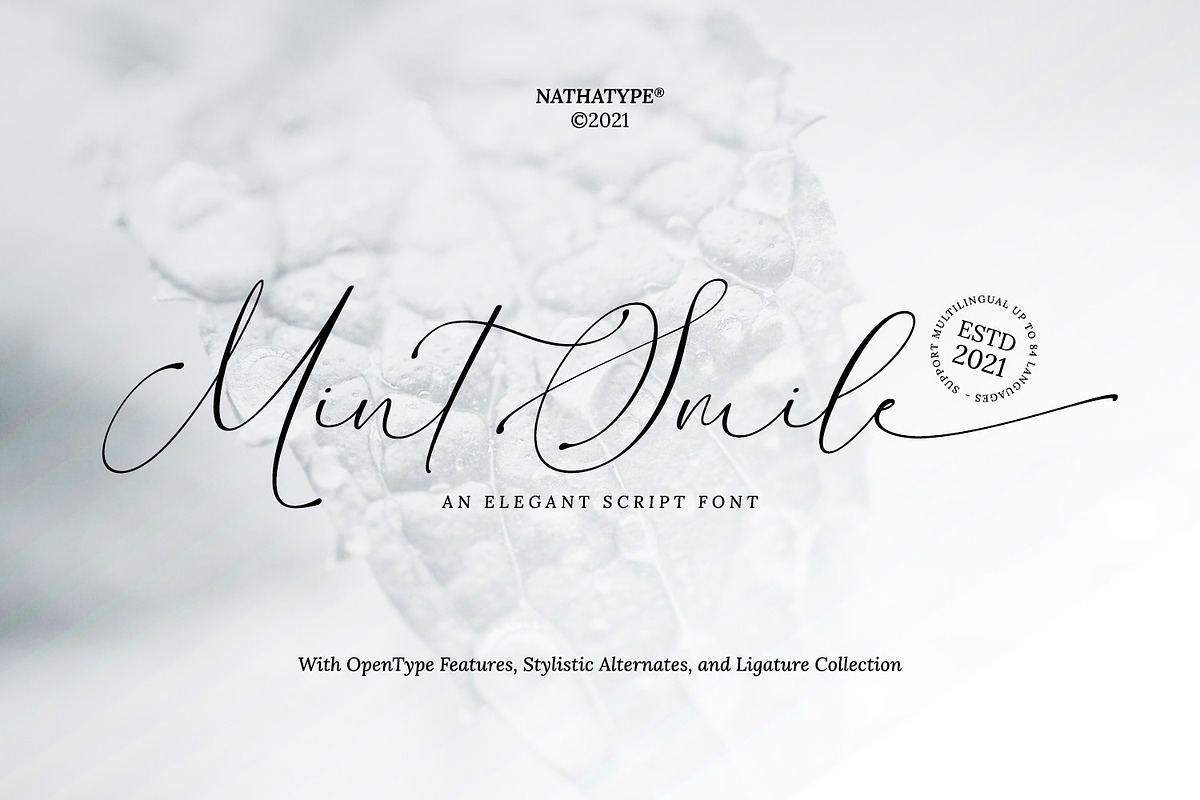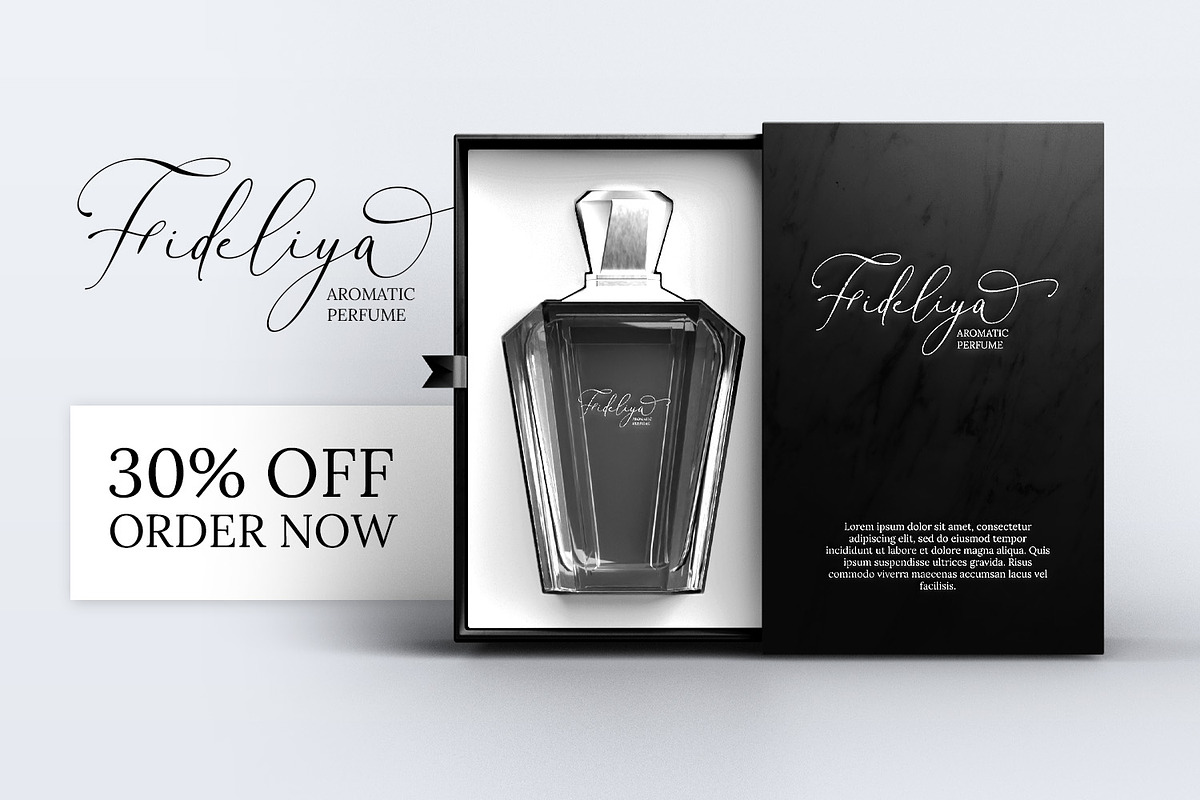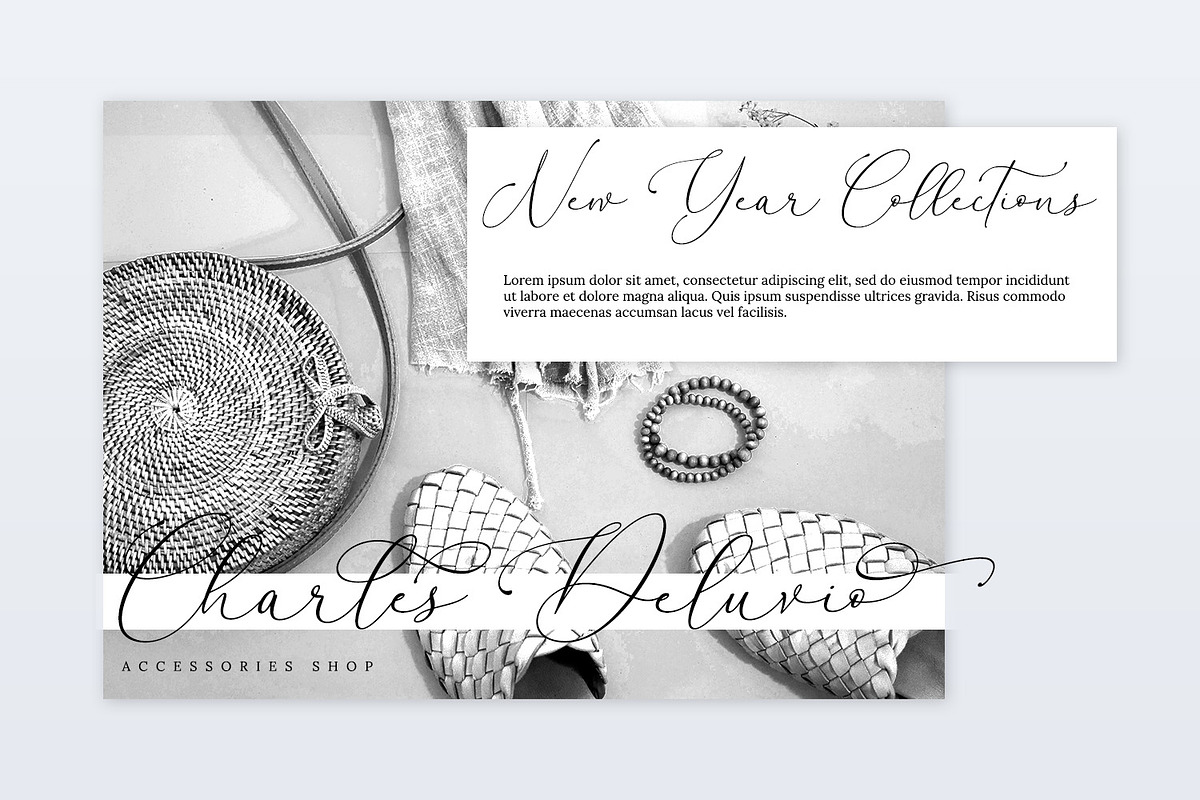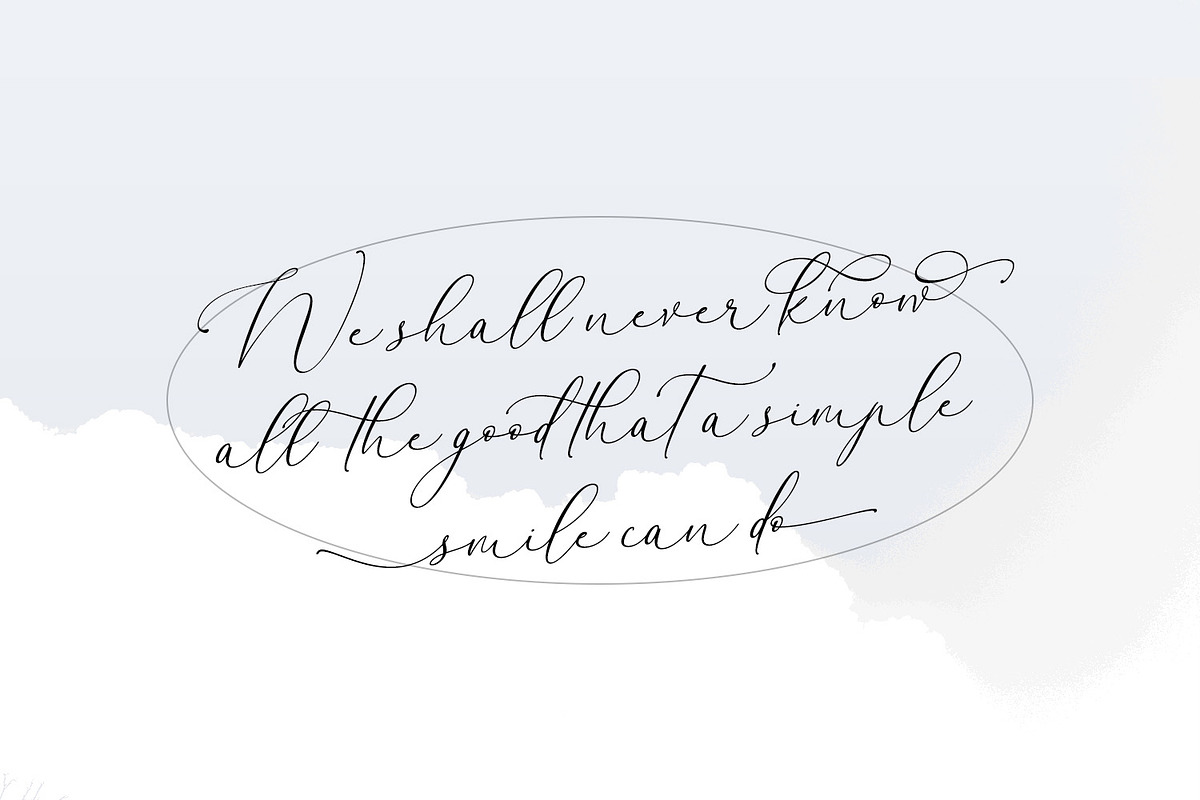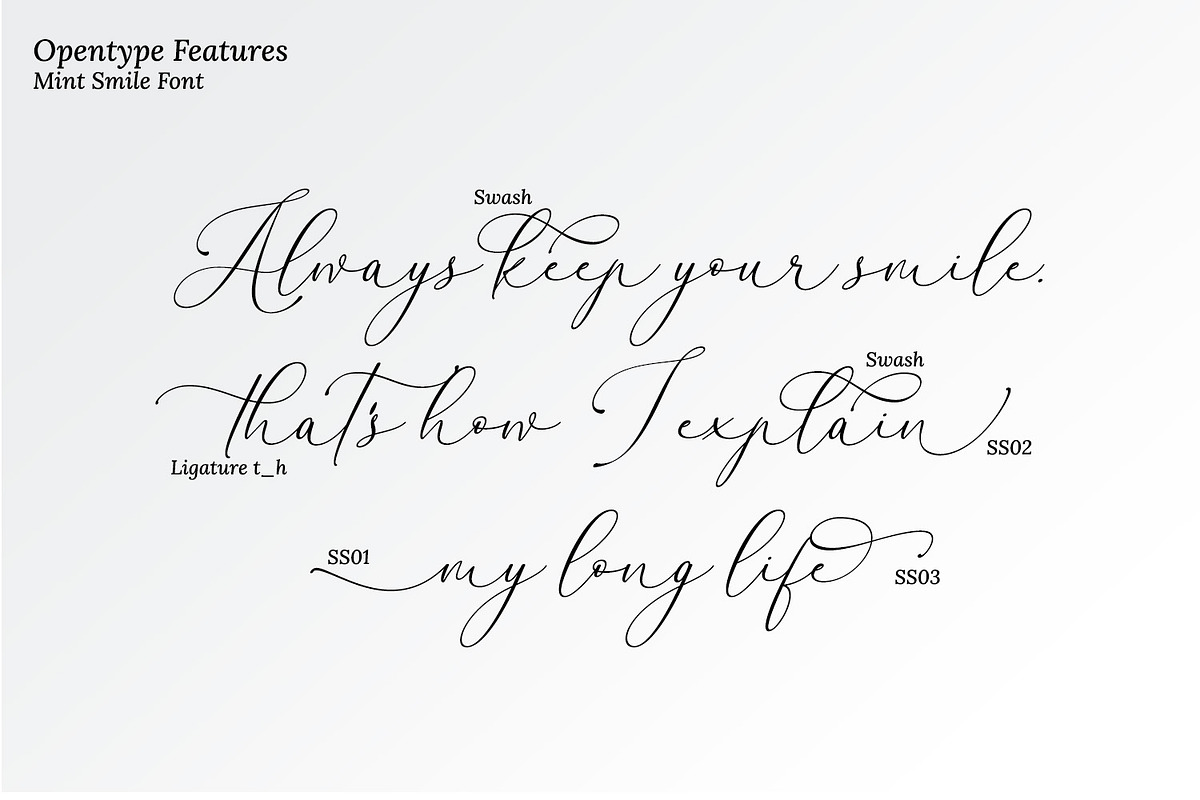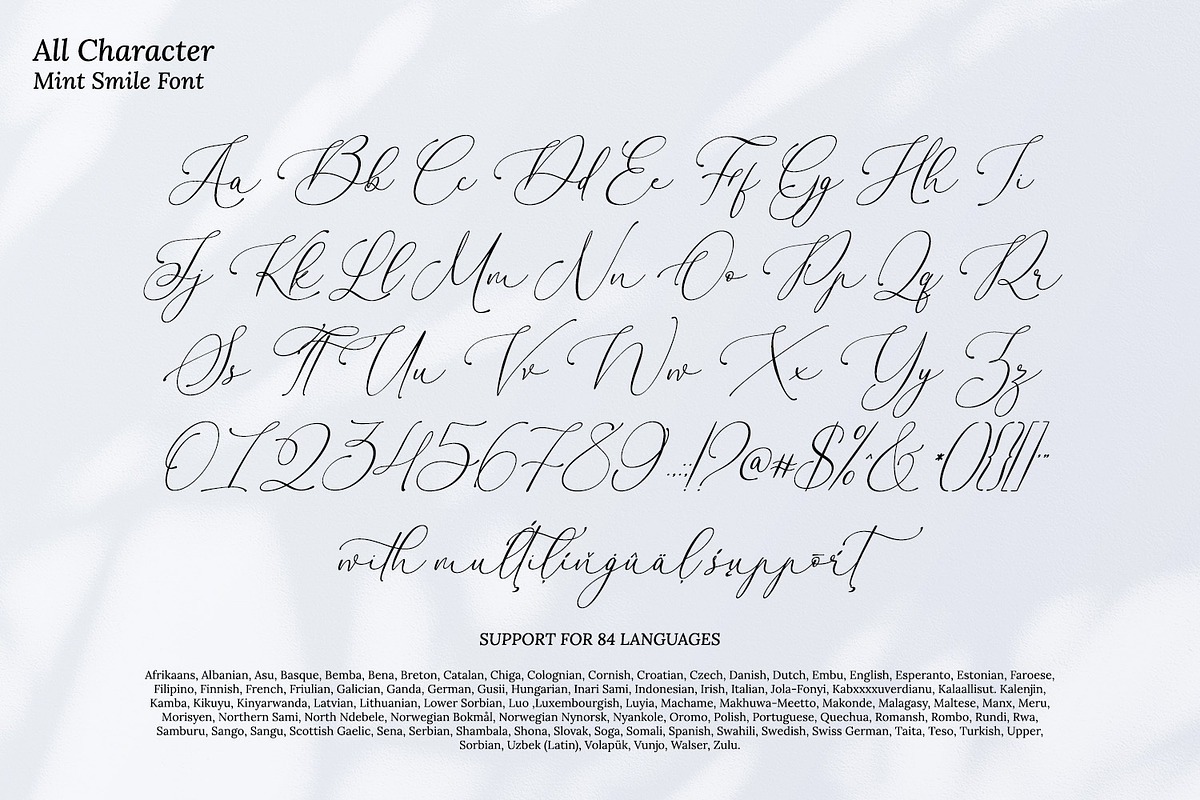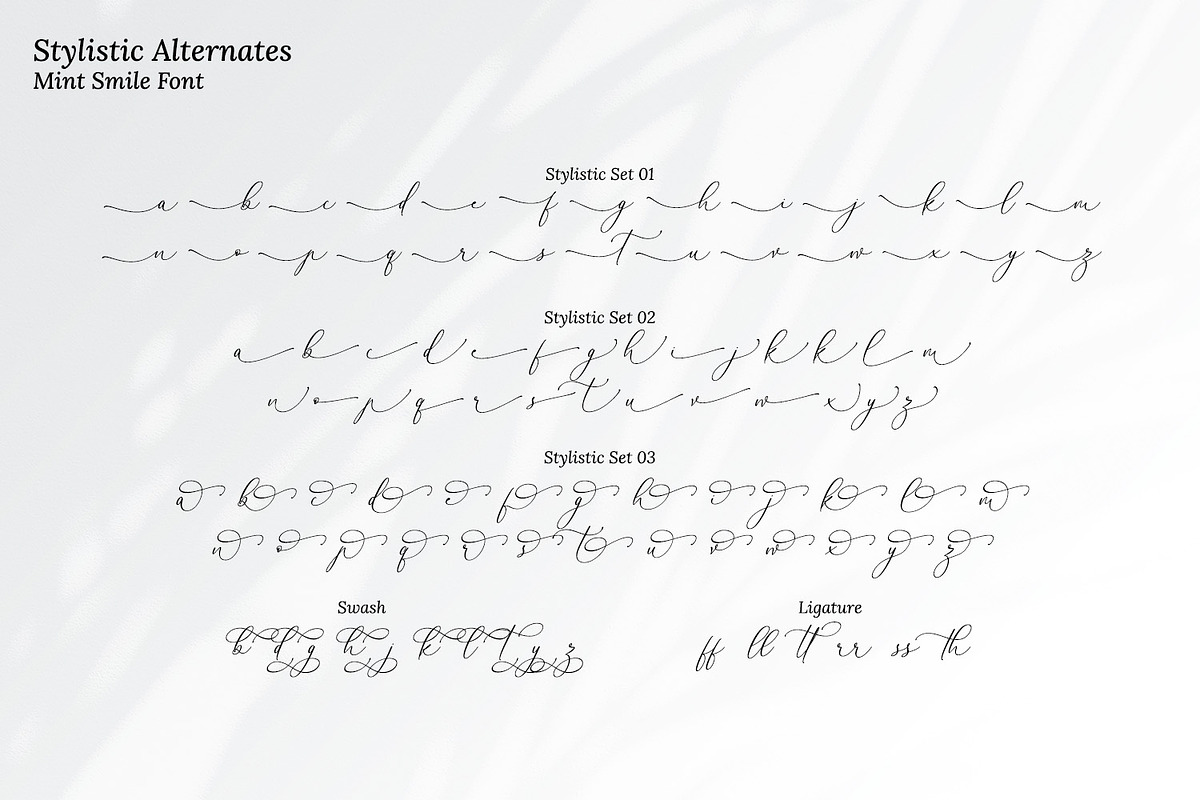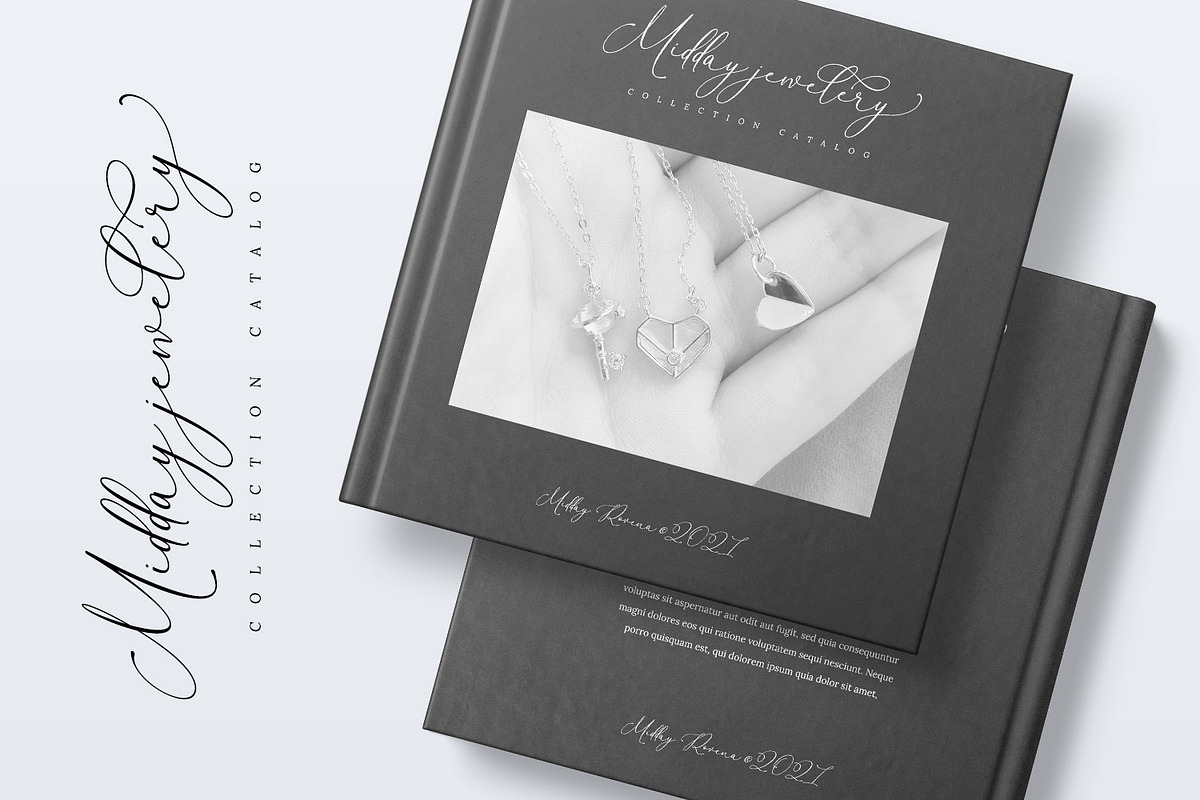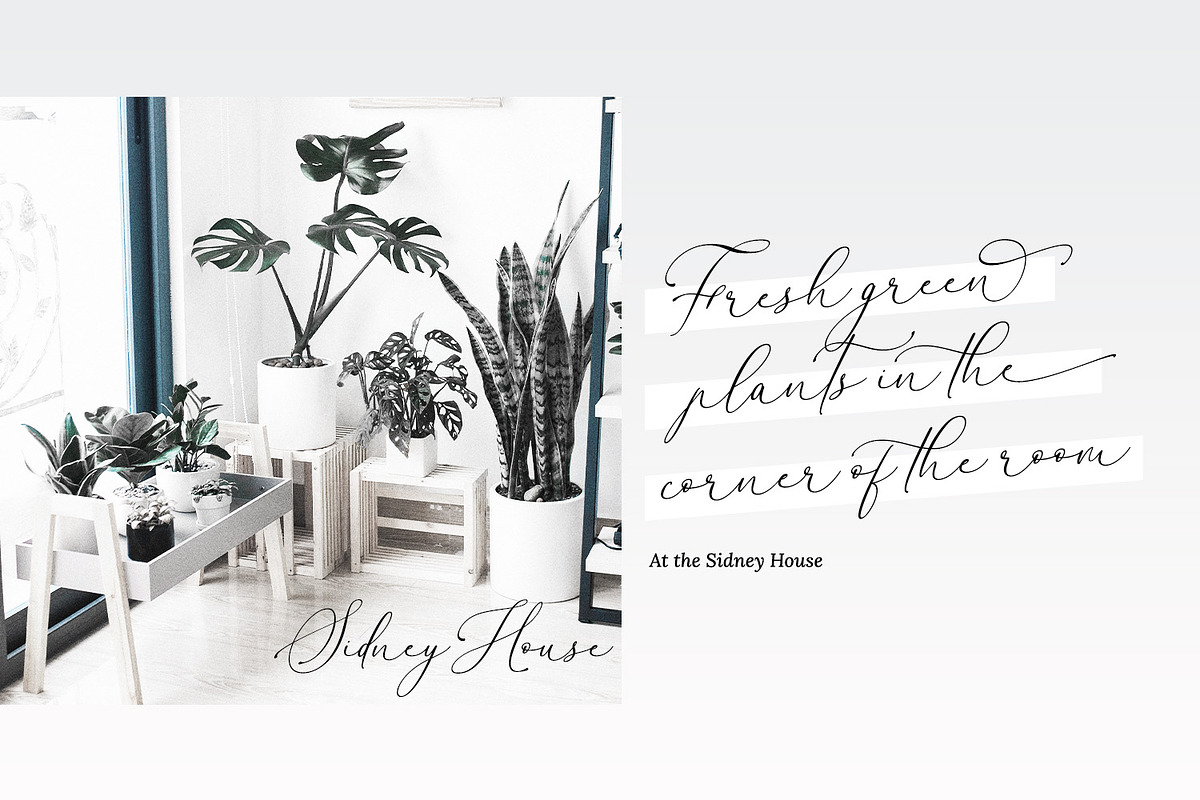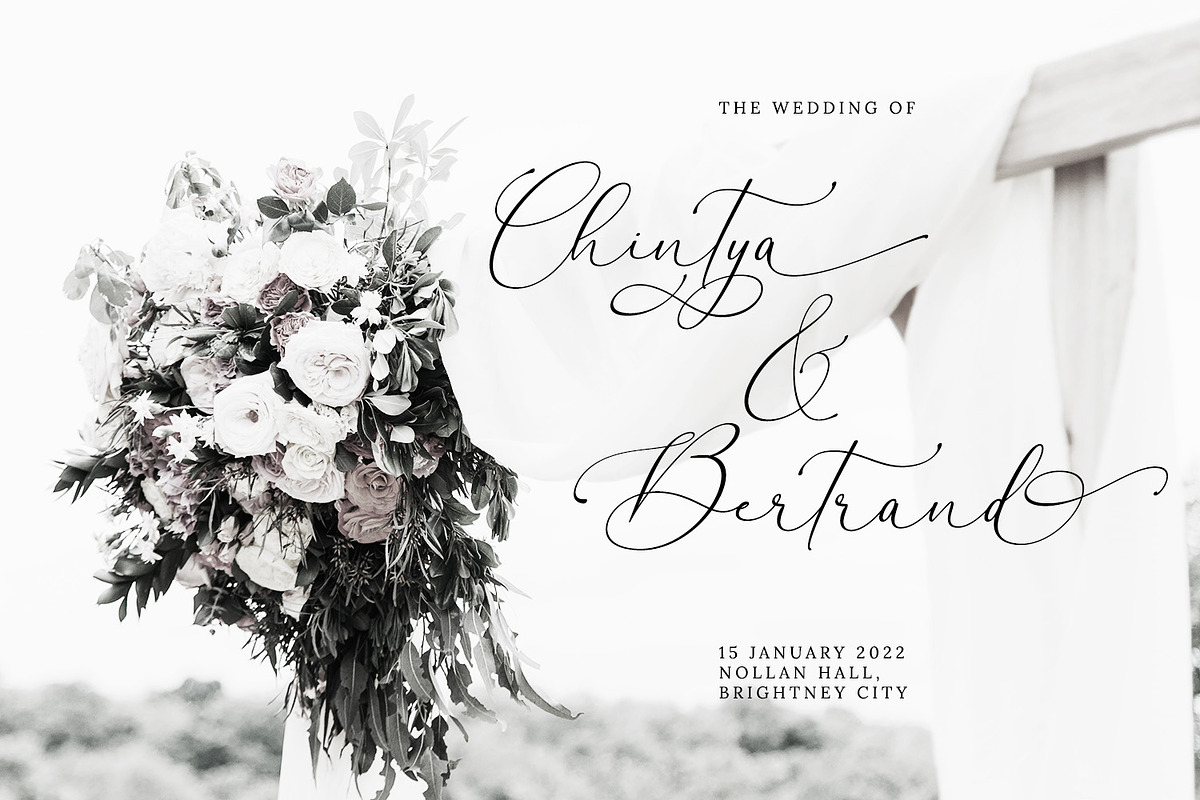
Mint Smiles
Are you looking for a script font? Do you dream of creating headings that stand out and inspire creativity, imagination, and endless fun? Wait no more, we will give you the best choice.
Mint Smile-Script Font
Mint Smile is an fresh and modern script with a handmade calligraphy style. Perfect for adding a touch of whimsy to your already amazing designs. This font is perfect for branding projects, home appliance design, product packaging, use in business cards, invitation cards, etc. Simply as a stylish text overlay onto a background image or anything that requires a touch of elegance.
Our font always includes Multilingual Support to make your branding reach a global audience. Inspire your audience, clients, or guests with this beautiful, statement font.
- Stylistic Sets